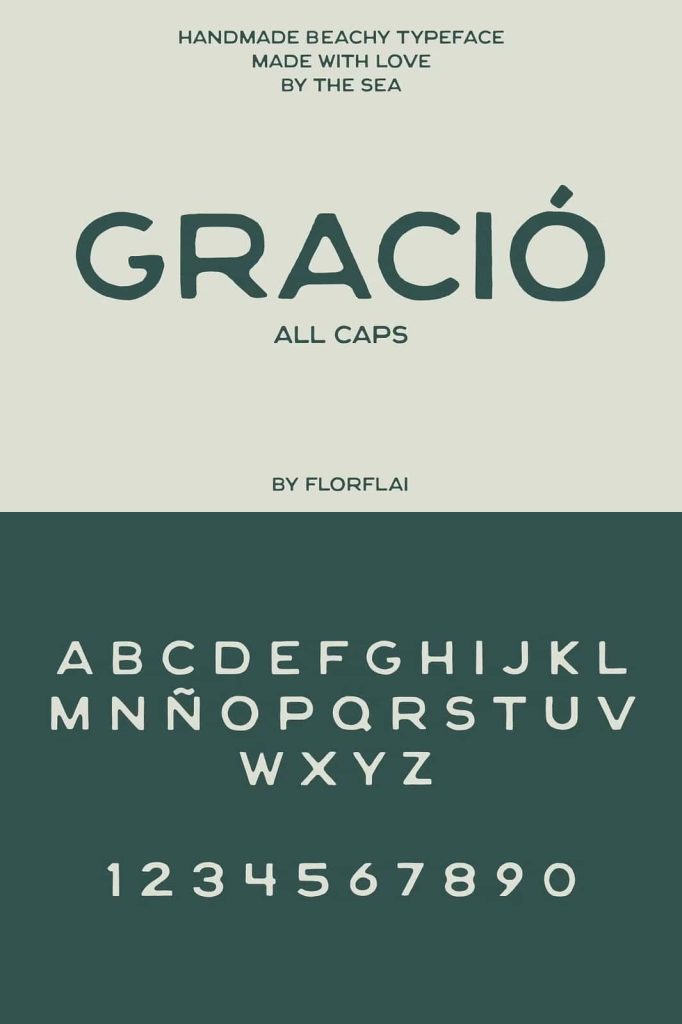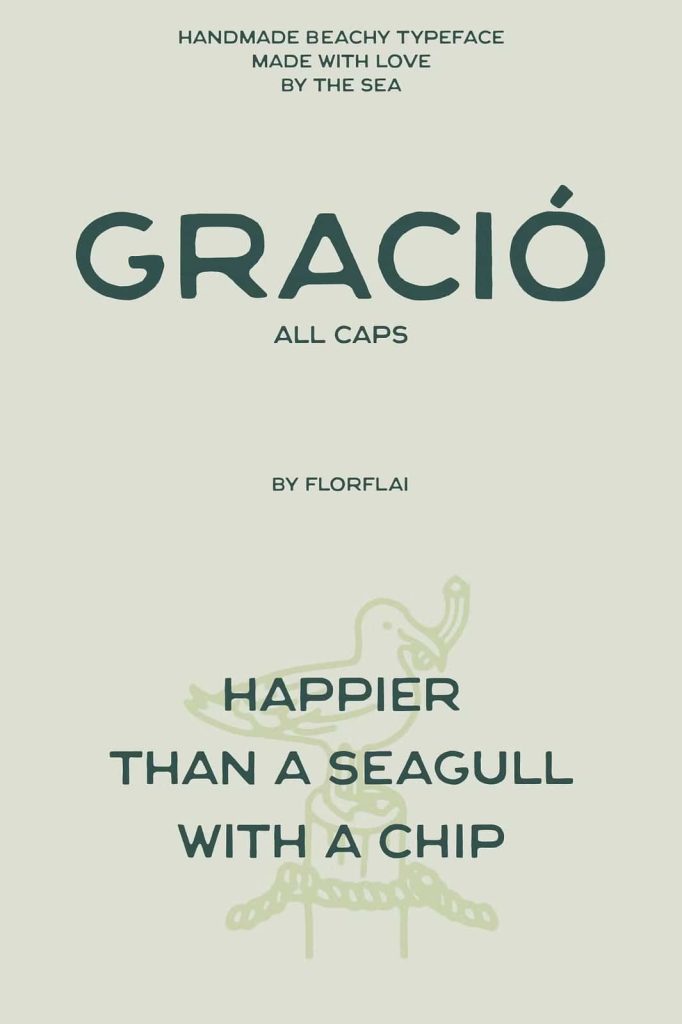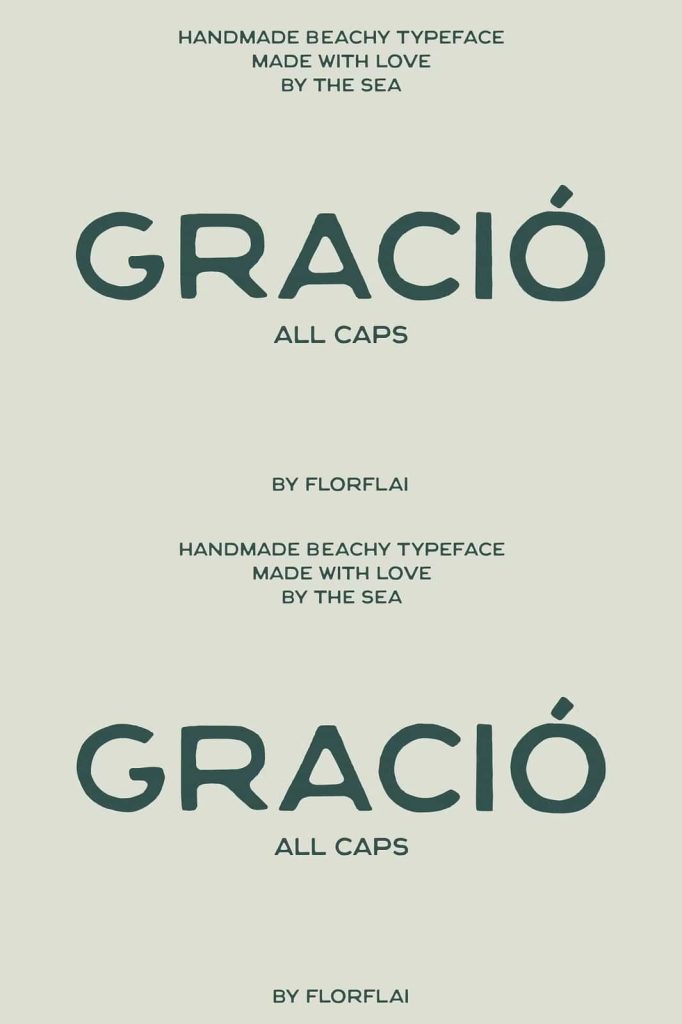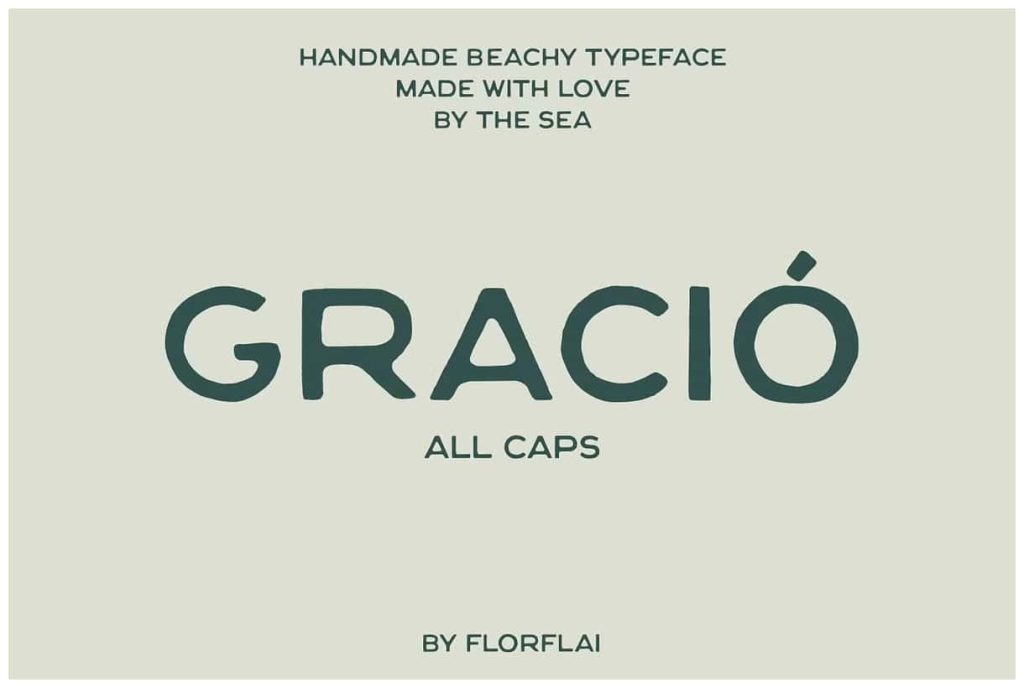
GracióleastedFebruary 26, 2025Fonts Gració font is inspired by Cala Gració and the essence of coastal living with its handmade sans serif style Download